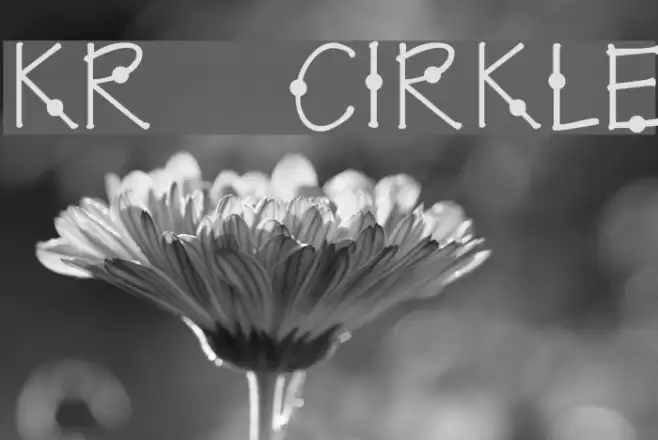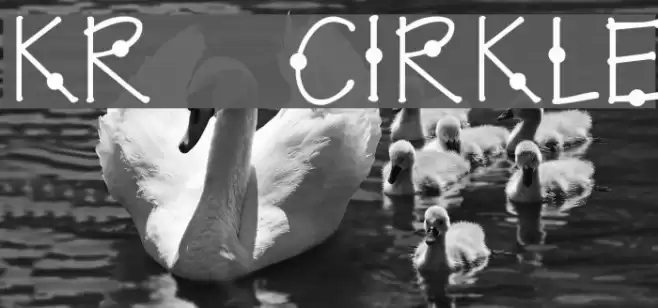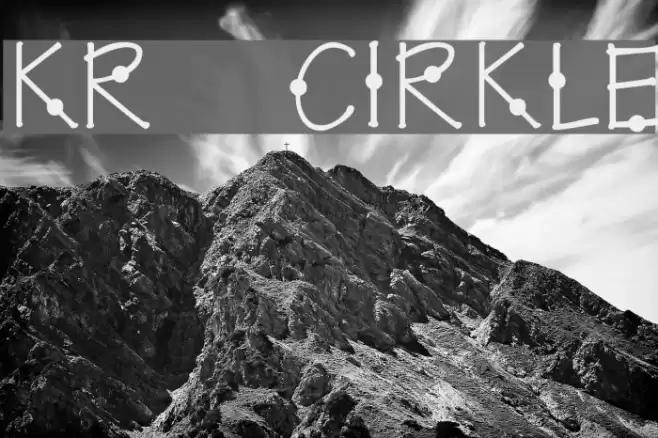
KR Cirkle Font
KR Cirkle Description
This font features a unique and playful design with circular elements integrated into the strokes of each character. The letters are constructed with a consistent line weight, and the circular motifs add a decorative touch that makes the font stand out. The overall appearance is modern and quirky, making it suitable for creative and informal projects. The uppercase letters maintain a uniform height, while the circular elements provide a sense of movement and rhythm across the text. This font is ideal for projects that require a distinctive and eye-catching typeface.
A playful, modern font with circular decorative elements from Uncategorized fonts.
- Proposed Projects: Ideal for children's books, playful branding, creative posters, and unique invitations.
- Overall Style: Modern, Decorative